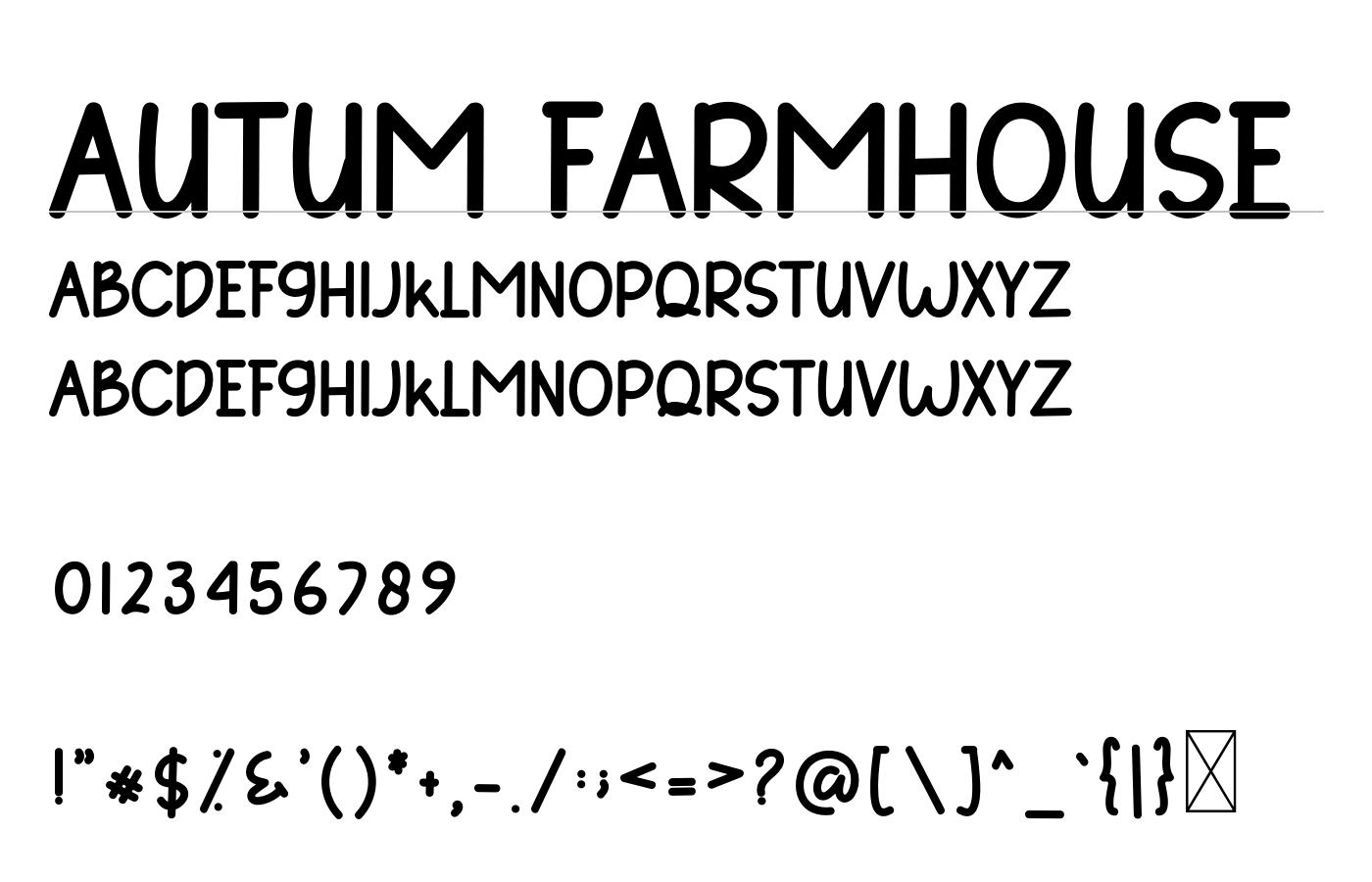
Autum Farmhouse Font is a playful sans serif typeface with a handwritten feel, featuring rounded strokes and a casual, friendly appearance. Its unique letterforms, such as the quirky uppercase Q and lively numerals, add charm and personality, making it perfect for designs that want to convey warmth and approachability. This font works especially well for branding, packaging, and editorial projects that seek a cozy, rustic, yet modern touch.
Autum Farmhouse Font
About Autum Farmhouse Font